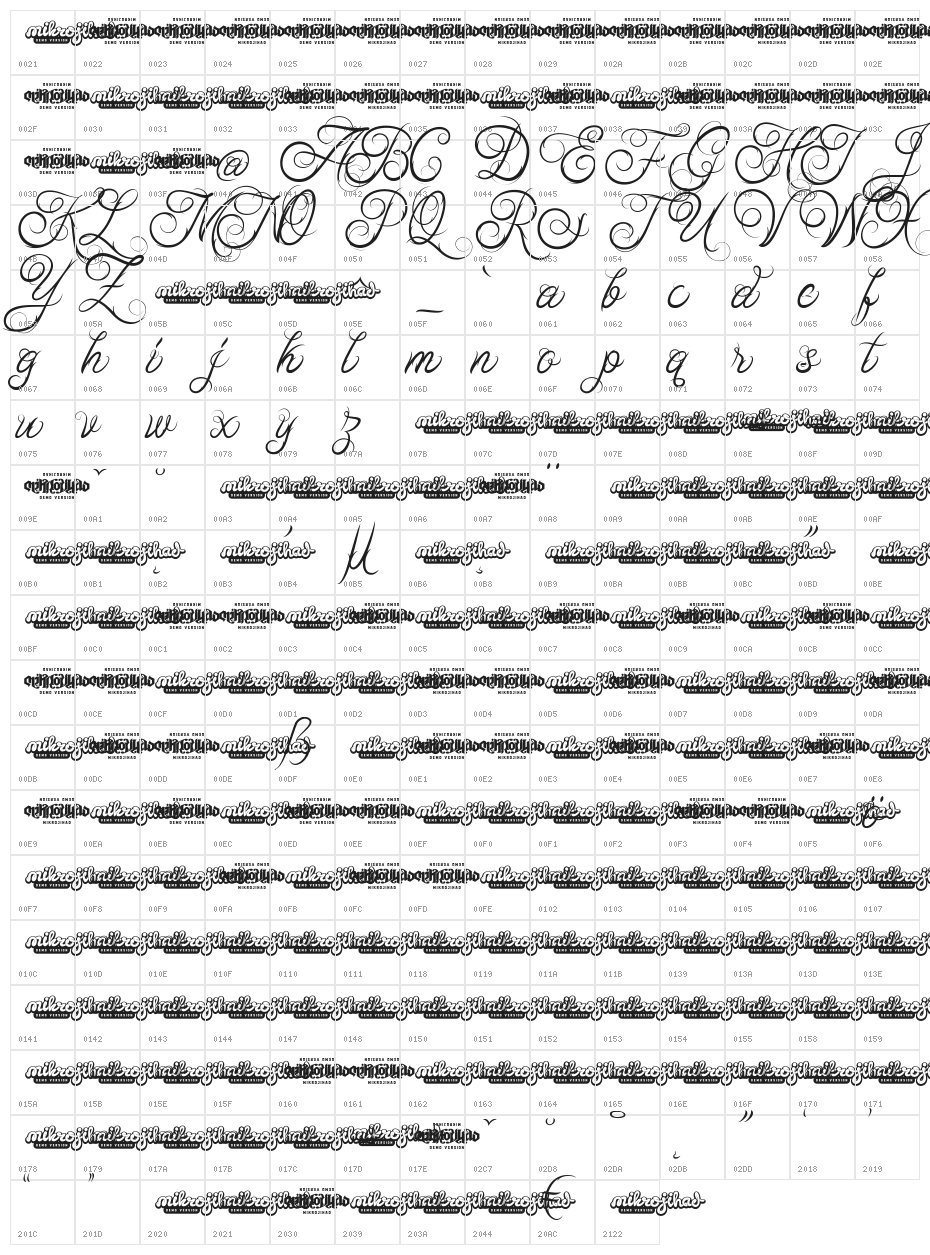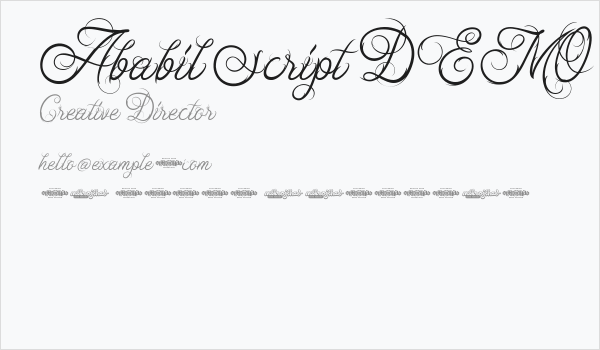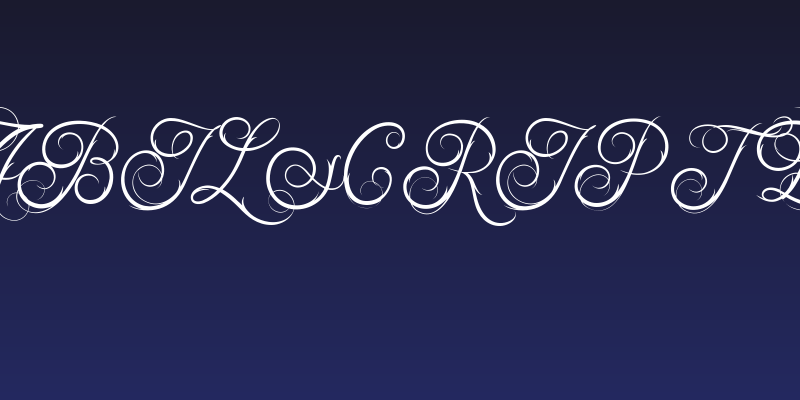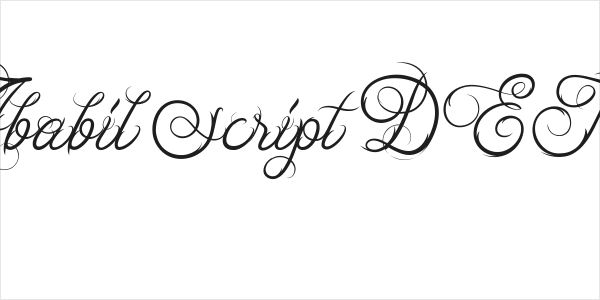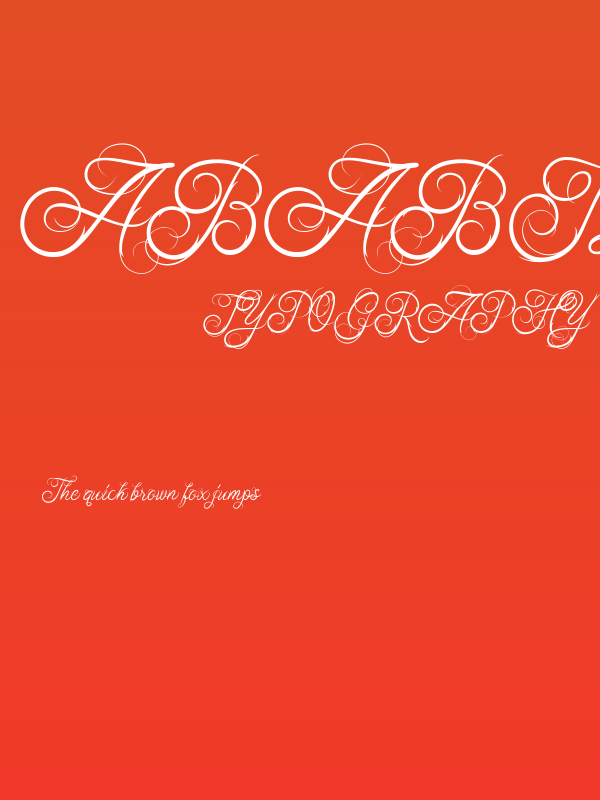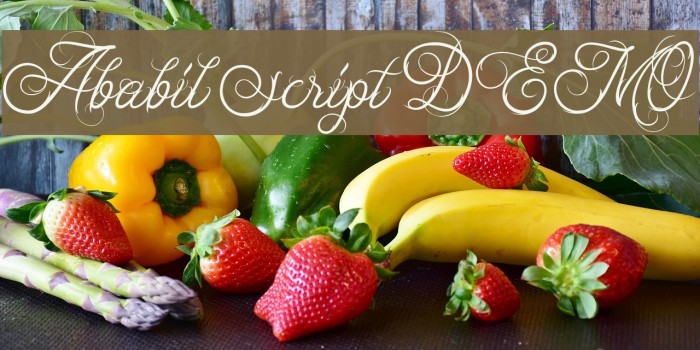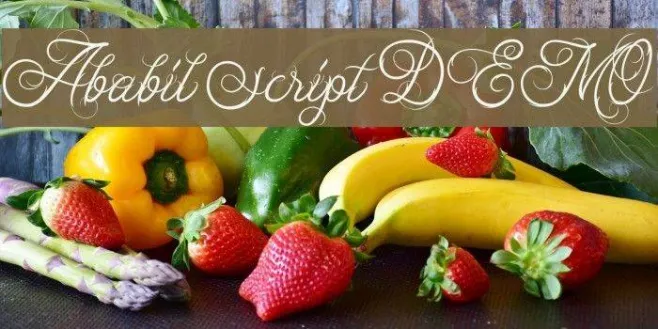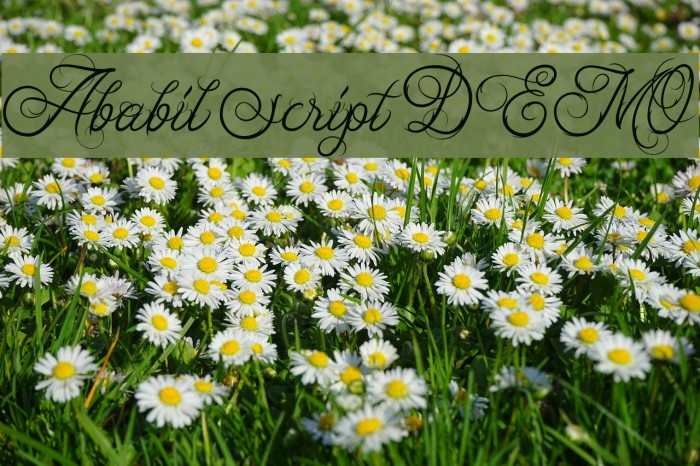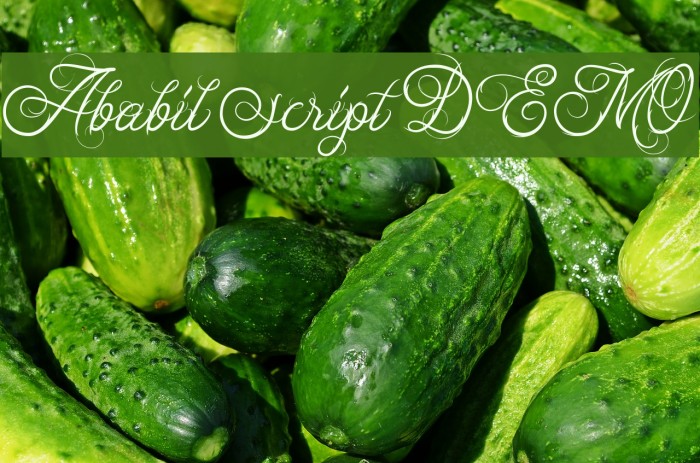
Ababil Script DEMO Font
Ababil Script DEMO Description
This font features an elaborate and decorative script style with intricate swirls and flourishes. The uppercase letters are particularly ornate, with each character adorned with elegant loops and curves that extend beyond the main body of the letter. The lowercase letters maintain a flowing, cursive style, complementing the uppercase with a slightly more restrained elegance. The numbers and special characters follow the same decorative theme, ensuring consistency across the entire character set. This font exudes a sense of sophistication and artistry, making it ideal for projects that require a touch of elegance and flair.
| Use Case | Logos, Invitations, Decorative Headlines |
| Proposed Projects | Ideal for wedding invitations, luxury branding, elegant stationery, and decorative headlines. |